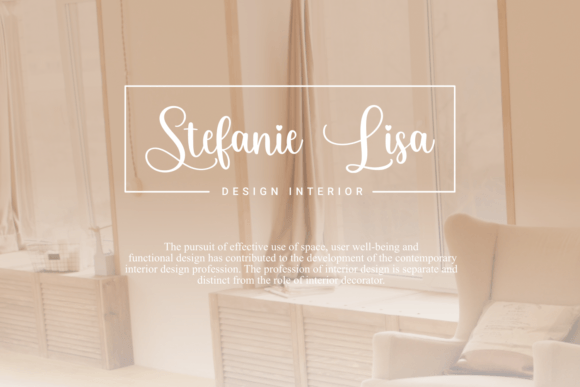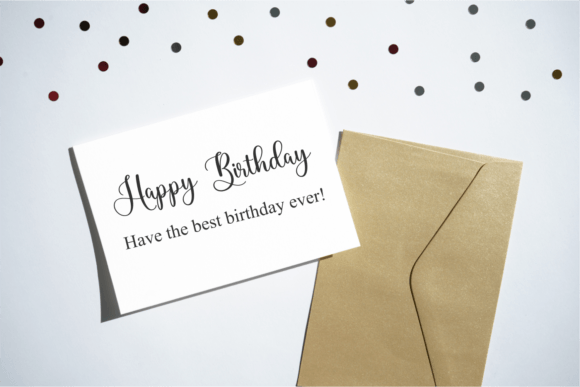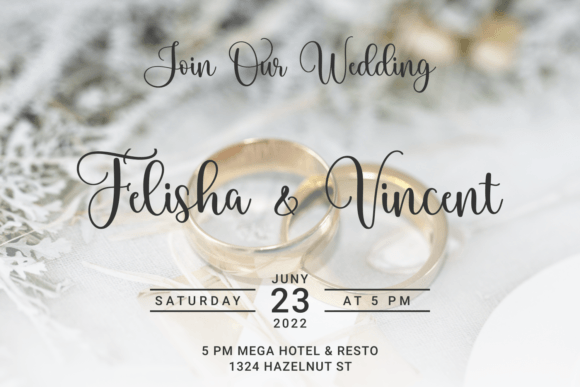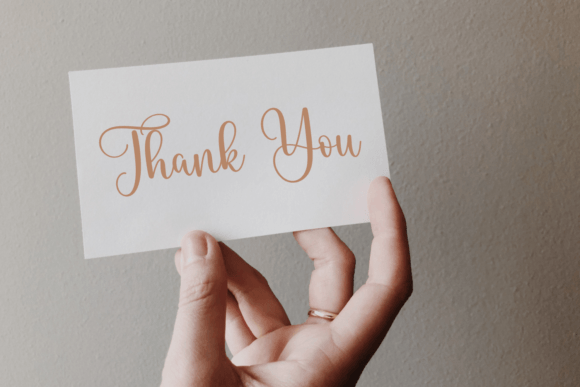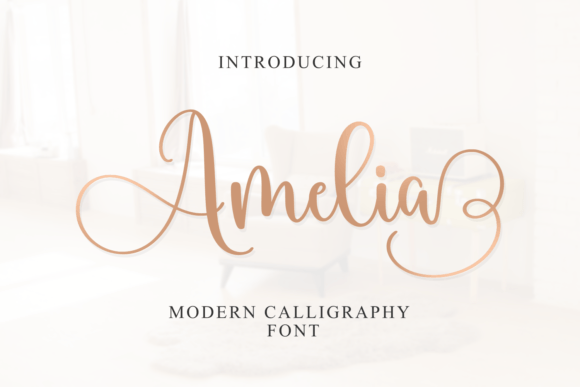
Introducing Amelia Font: Elevate Your Designs with Elegant Calligraphy
Are you looking for a font that can add a touch of sophistication and elegance to your designs? Look no further than Amelia Font, a beautiful calligraphy font that is sure to make your creations stand out. With its curly swashes and PUA encoding, Amelia Font is the perfect choice for designers and crafters who want to take their work to the next level.
What is Amelia Font?
Amelia Font is a stunning calligraphy font that features a curly swash, giving it a unique and elegant look. This font is perfect for adding a touch of sophistication to any design, whether it’s a logo, label, branding, invitation, website, quote, or more. With Amelia Font, you can create beautiful and eye-catching designs that are sure to impress.
Key Features of Amelia Font
- Elegant Calligraphy Style: Amelia Font features a beautiful, flowing calligraphy style that is perfect for creating elegant and sophisticated designs.
- Curly Swashes: The font includes curly swashes that add a touch of whimsy and flair to your designs.
- PUA Encoding: Amelia Font is PUA encoded, which means you can access all glyphs and swashes with ease. This makes it simple to use and customize the font to suit your needs.
- Versatile: Amelia Font can be used for a wide range of design projects, from logos and branding to invitations and websites.
Why Choose Amelia Font?
There are many reasons why Amelia Font is a great choice for designers and crafters. Here are just a few:
- Unique and Eye-Catching: Amelia Font is a unique and eye-catching font that will help your designs stand out from the crowd.
- Elegant and Sophisticated: The font’s elegant calligraphy style and curly swashes give it a sophisticated and refined look that is perfect for high-end designs.
- Easy to Use: With PUA encoding, Amelia Font is easy to use and customize, even for those who are new to font design.
- Versatile: Amelia Font can be used for a wide range of design projects, making it a great addition to any design library.
How to Use Amelia Font
Amelia Font is easy to use and can be incorporated into a wide range of design projects. Here are a few ideas to get you started:
- Logos and Branding: Use Amelia Font to create a unique and eye-catching logo or branding identity for your business or client.
- Invitations and Stationery: Add a touch of elegance to your invitations, stationery, and other paper goods with Amelia Font.
- Websites and Blogs: Use Amelia Font to create beautiful and elegant headings and titles for your website or blog.
- Quotes and Graphics: Create stunning quotes and graphics using Amelia Font and share them on social media or use them in your designs.
Tips and Tricks for Getting the Most Out of Amelia Font
Here are a few tips and tricks for getting the most out of Amelia Font:
- Experiment with Different Sizes and Colors: Amelia Font looks great in a variety of sizes and colors, so don’t be afraid to experiment and find the perfect combination for your design.
- Use the Swashes to Add Flair: The curly swashes in Amelia Font are a great way to add a touch of whimsy and flair to your designs. Use them to create beautiful and eye-catching titles and headings.
- Pair it with Other Fonts: Amelia Font pairs well with a variety of other fonts, so don’t be afraid to experiment and find the perfect combination for your design.
Amelia Font is a beautiful and elegant calligraphy font that is perfect for designers and crafters who want to add a touch of sophistication to their designs. With its curly swashes and PUA encoding, Amelia Font is easy to use and customize, making it a great addition to any design library. Whether you’re creating logos, invitations, websites, or quotes, Amelia Font is sure to make your designs stand out.